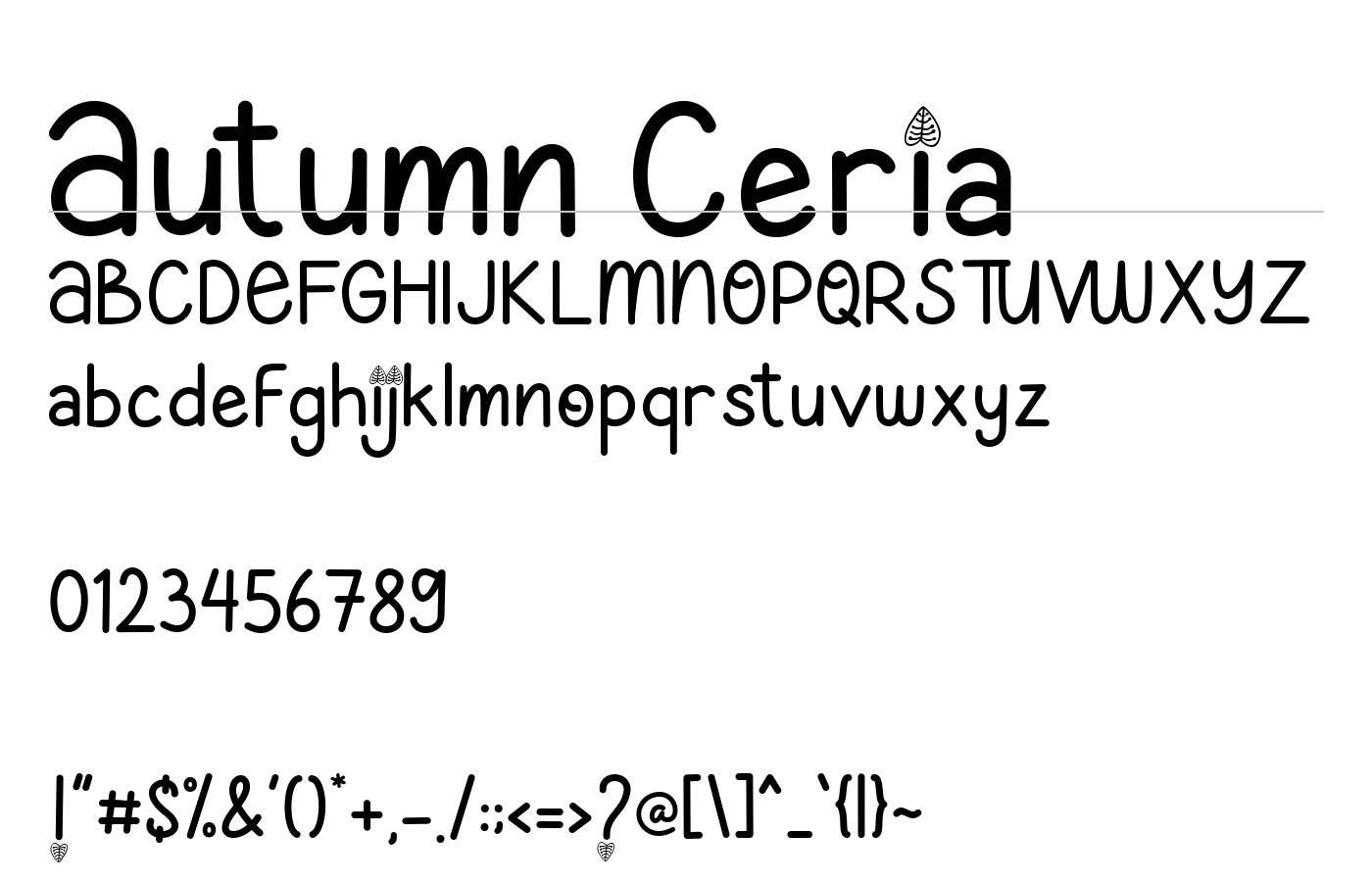
Autumn Ceria is a playful, casual sans serif font with a hand-drawn feel, featuring rounded strokes and quirky letterforms that add charm and warmth. Its moderate weight and generous spacing make it highly readable, while the little leaf motifs on certain characters give it a unique, nature-inspired personality perfect for friendly, creative, and seasonal designs. This font works especially well for branding, invitations, children’s materials, and any project seeking a lighthearted and approachable look.
Autumn Ceria Font
About Autumn Ceria Font
| Font family | Autumn Ceria Font |
| Designer | AEN Creative Studio 2021 |